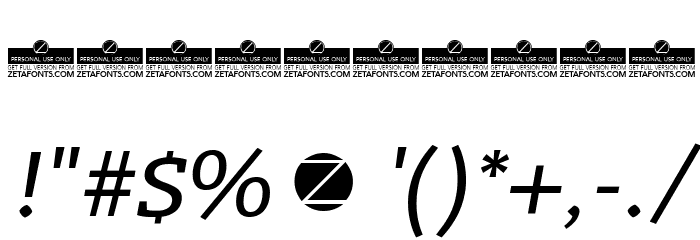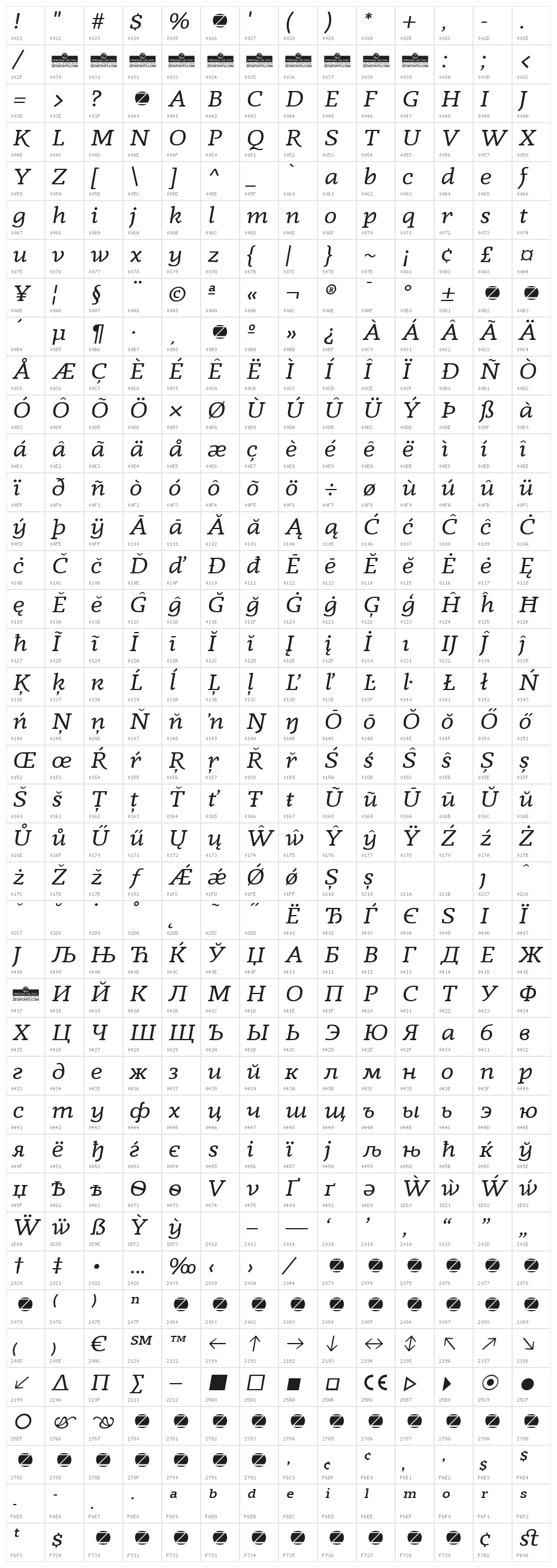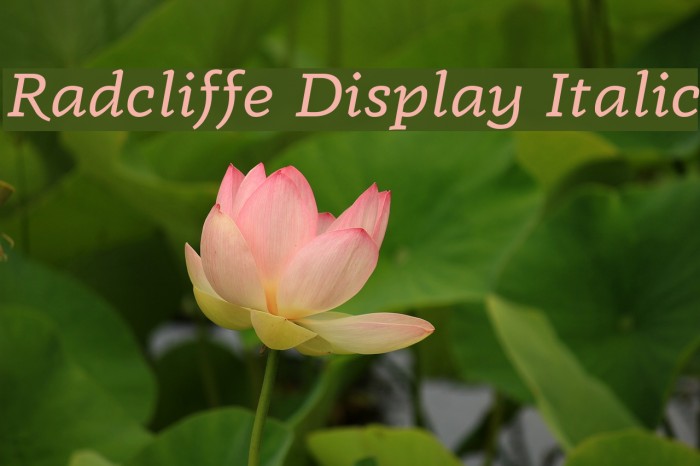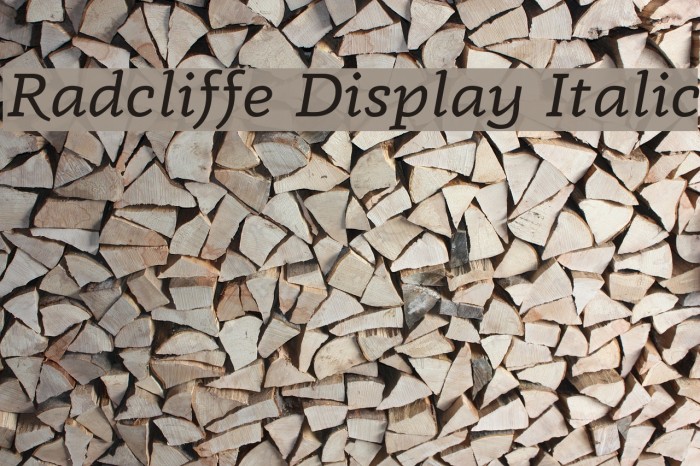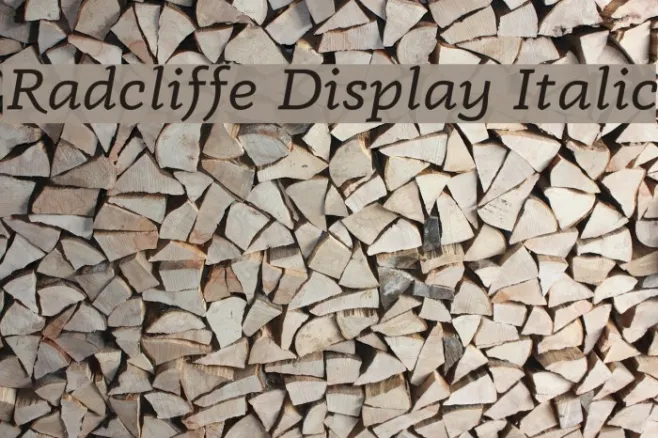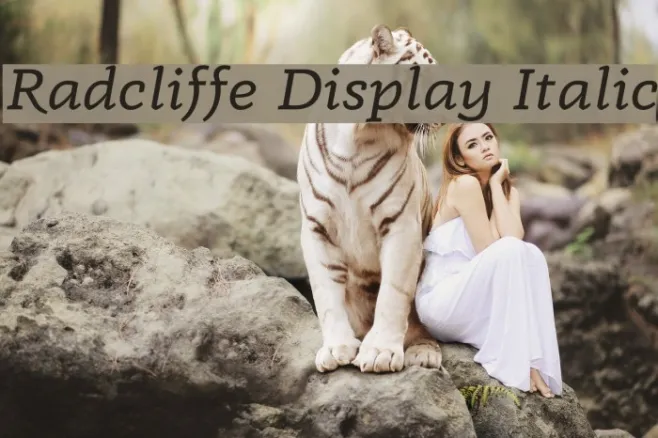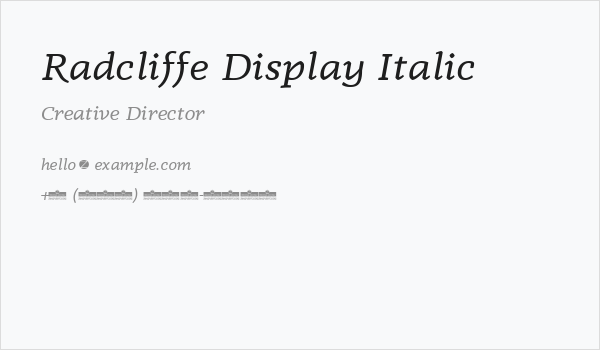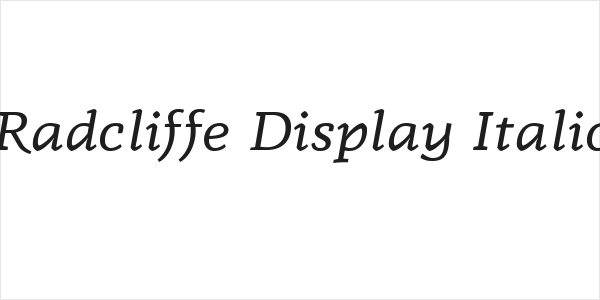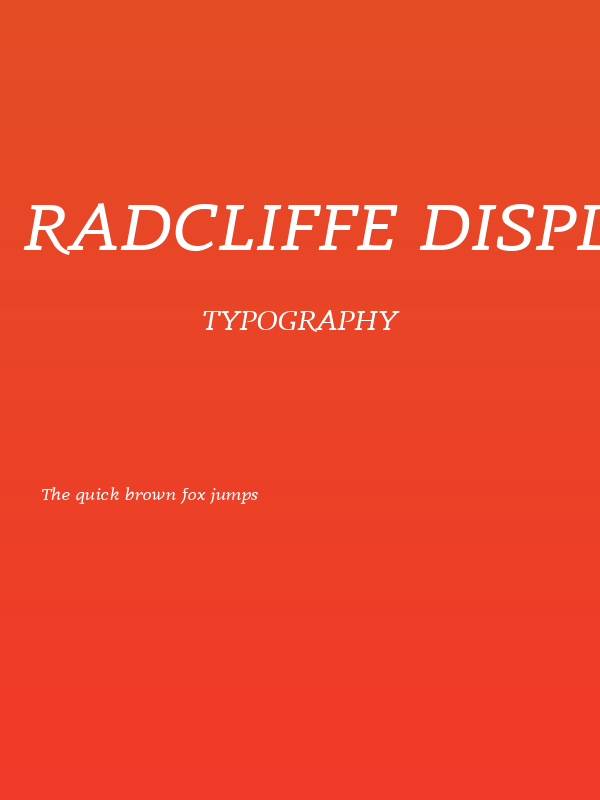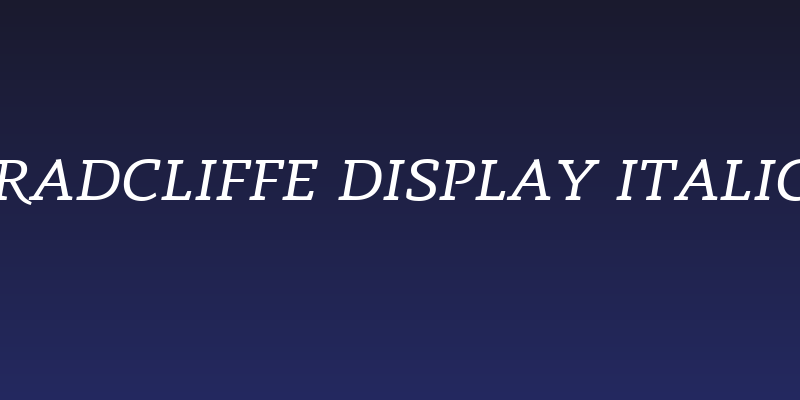
Radcliffe Display Italic Font
Radcliffe Display Italic Description
This font exhibits a sophisticated and elegant style with a distinct italic slant, giving it a dynamic and fluid appearance. The characters are well-proportioned with a moderate contrast between thick and thin strokes, enhancing readability while maintaining a stylish flair. The uppercase letters are tall and commanding, while the lowercase letters are more rounded and approachable, creating a harmonious balance. The numerals and special characters are designed to complement the overall aesthetic, making this font versatile for various design needs.
Overall StyleClassic
Use CaseHeadlines, Logos, Invitations
Proposed ProjectsIdeal for use in editorial design, fashion branding, luxury product packaging, and elegant invitations.